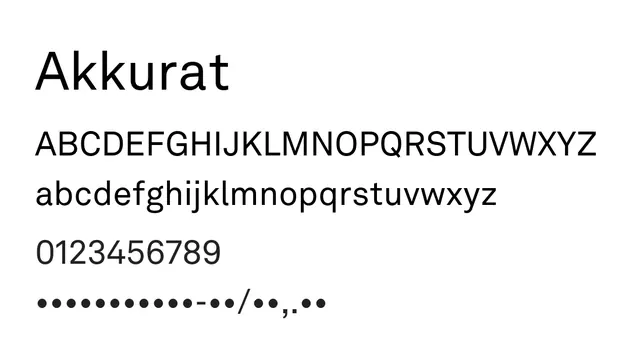
Akkurat TT
Akkurat TT, modern, clean
Akkurat TT is a clean, geometric neo-grotesque sans with Swiss modernism roots and humanist touches; refined and contemporary.
Excellent choice for UI design, digital interfaces, and editorial work where clarity and contemporary elegance matter. Works well at small sizes due to large x-height and open letterforms.
Pairs well with IBM Plex Mono for code or technical content, or with a serif like Crimson Pro for editorial contrast.